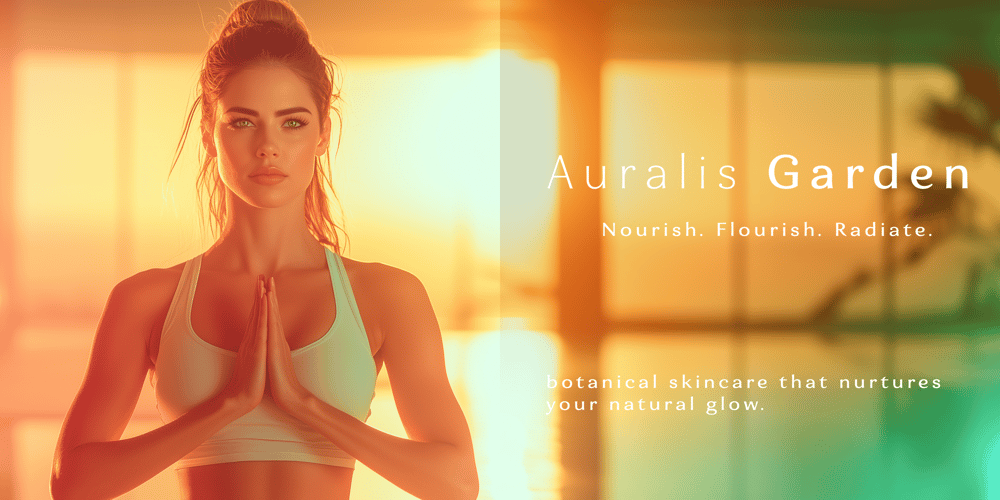
Enzia Font Family was designed by Jeremy Dooley and published by insigne. Enzia contains 50 styles and family package options. Meet Enzia: Where Energy Flows Through Every LetterPicture a typeface that dances between tradition and innovation – that’s Enzia. It’s not just another sans serif; it’s a masterful blend of strength and grace, where flared stems rise like pillars and terminals curve with unexpected joy. Each letter feels alive, as if caught in mid-motion.The magic lies in the details: Those distinctive bulbous terminals aren’t just design choices – they’re personality traits, giving Enzia its infectious optimism. The open counters breathe life into each character, creating a rhythm that pulls you in and keeps you reading.Born for the Wellness RevolutionWhether you’re crafting the next big fitness brand or launching a cold-pressed juice line, Enzia speaks the language of modern wellbeing. Its nine weights (three new!) flex from bold, attention-commanding headlines to silky-smooth body text, each weight telling its own story while maintaining the family’s signature warmth.Where Enzia Shines:In the wild world of boutique fitness studios, where every brand needs to feel both powerful and approachable. On kombucha bottles and protein bar packaging, where it catches eyes and invites closer inspection. Across digital platforms, where its crisp clarity cuts through the noise while maintaining a friendly presence.The Technical PoetryThe true artistry of Enzia reveals itself in its versatility. Those flared vertical stems? They’re not just beautiful – they’re functional, guiding the eye smoothly across each word. The rounded terminals don’t just look friendly – they create natural rhythm and flow that makes reading feel effortless.Ready to Transform Your Brand?Imagine your next project infused with Enzia’s unique energy. Whether it’s a bold gym logo that commands attention or an elegant wellness app interface that feels instantly trustworthy, Enzia brings that perfect balance of confidence and accessibility.